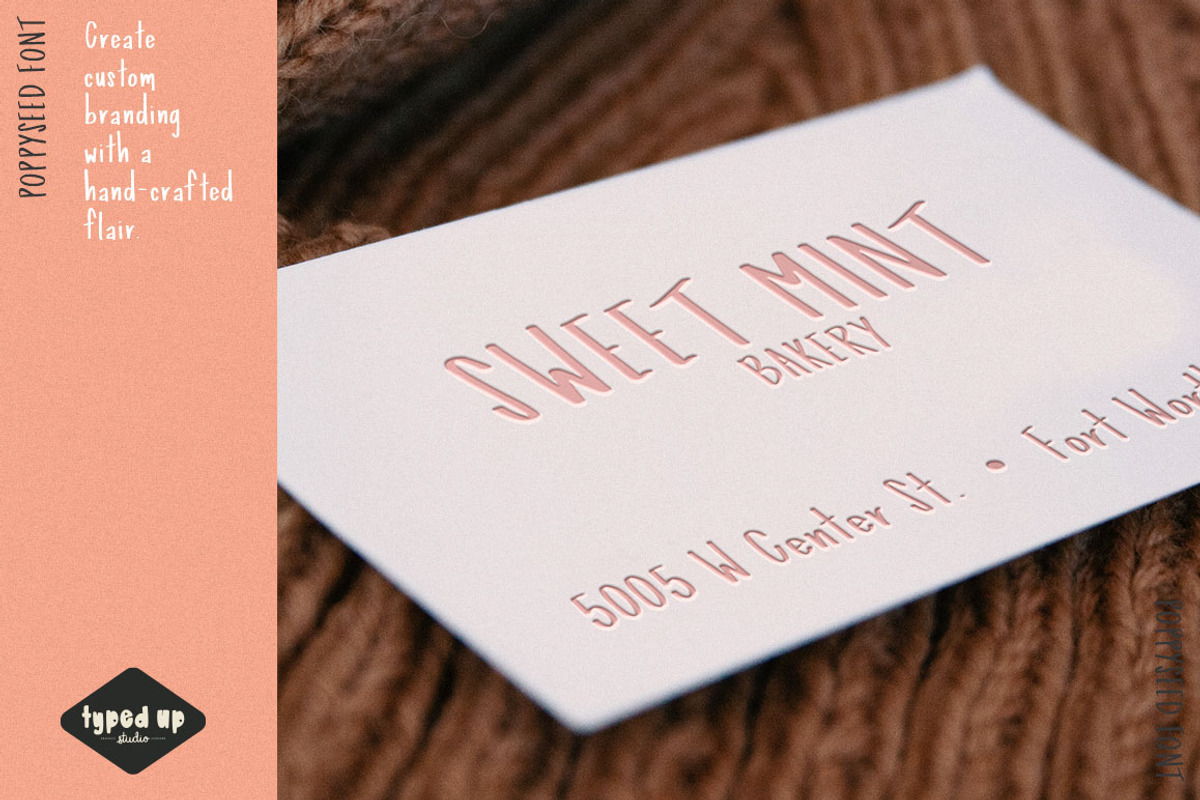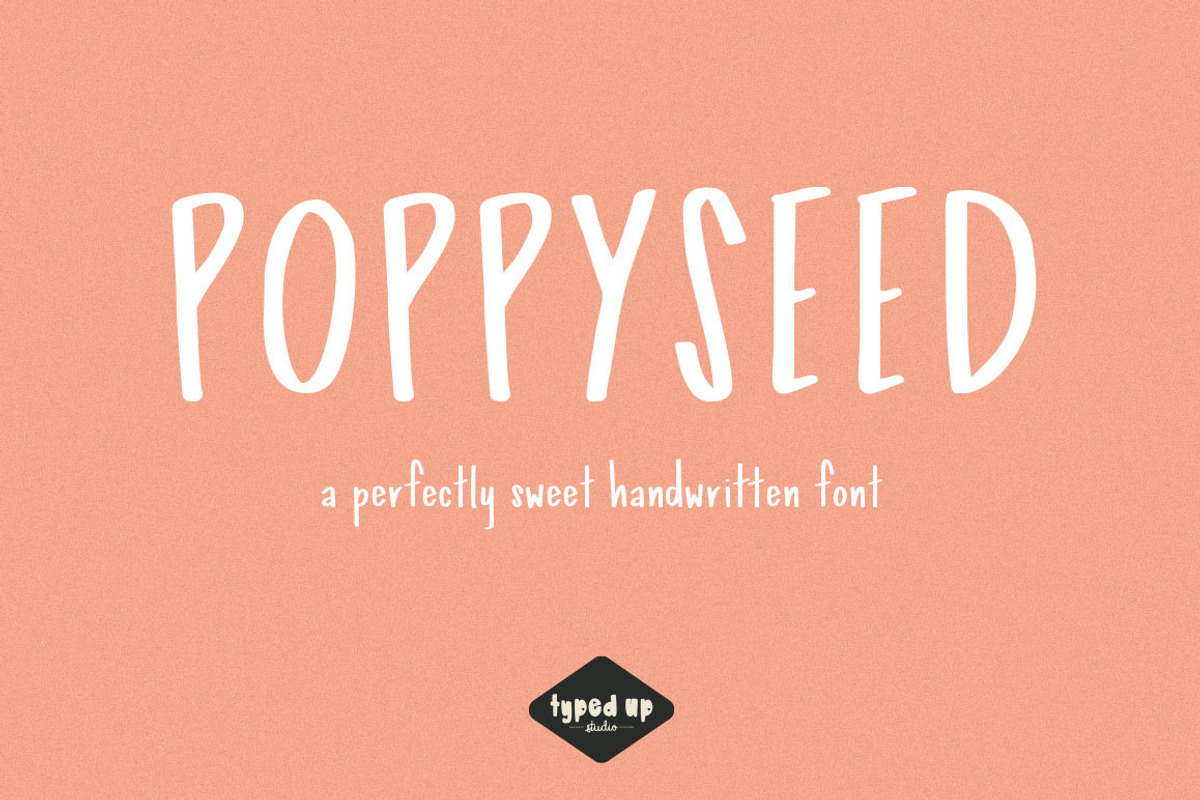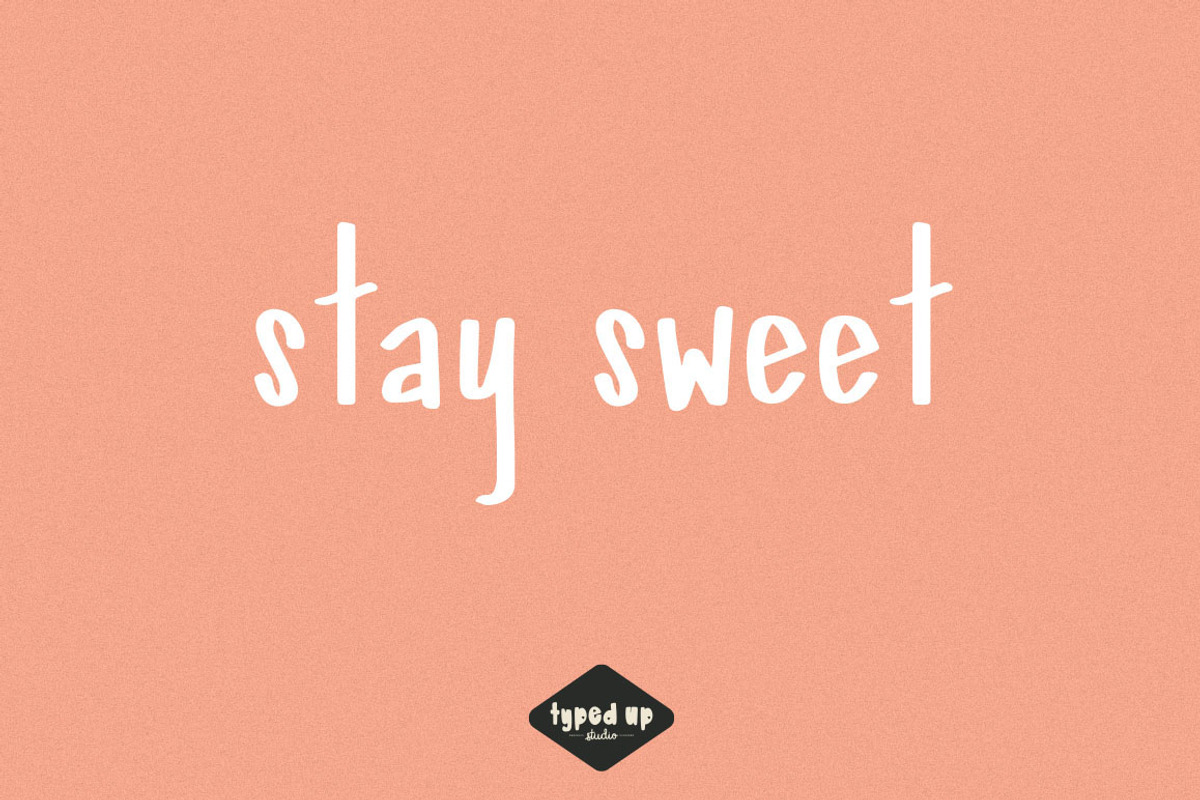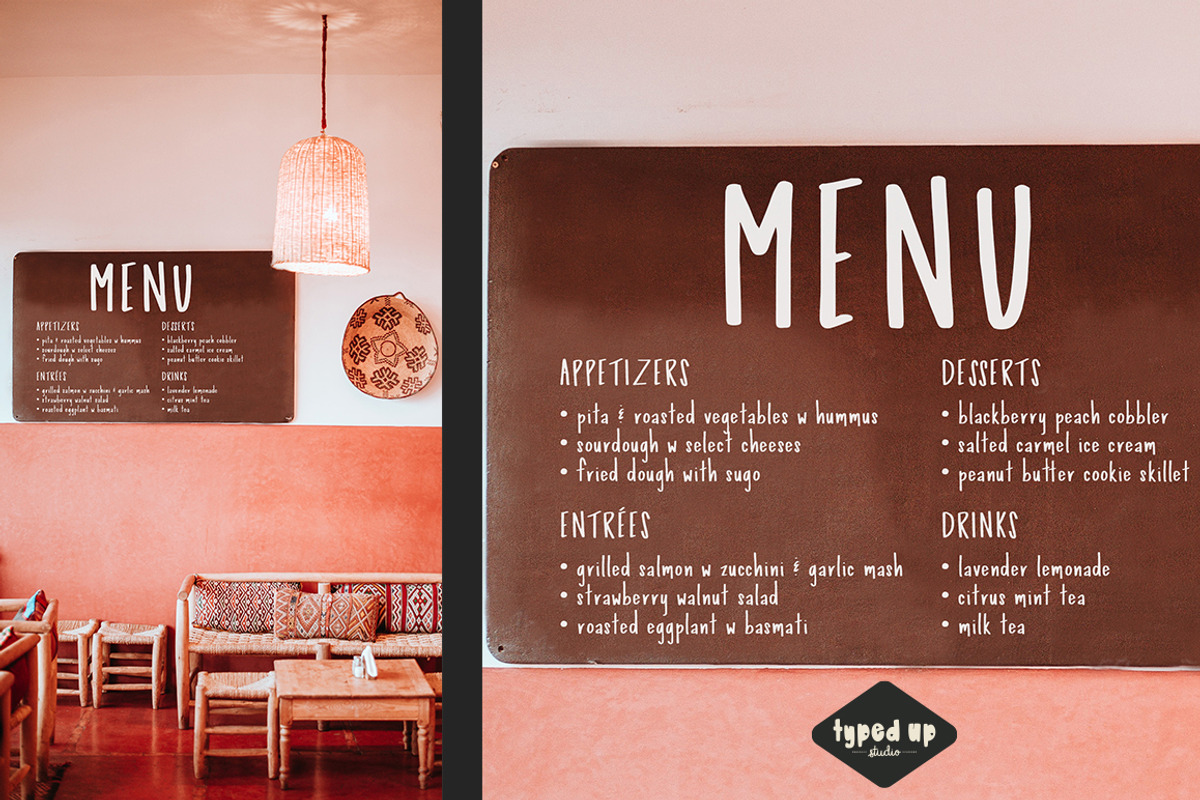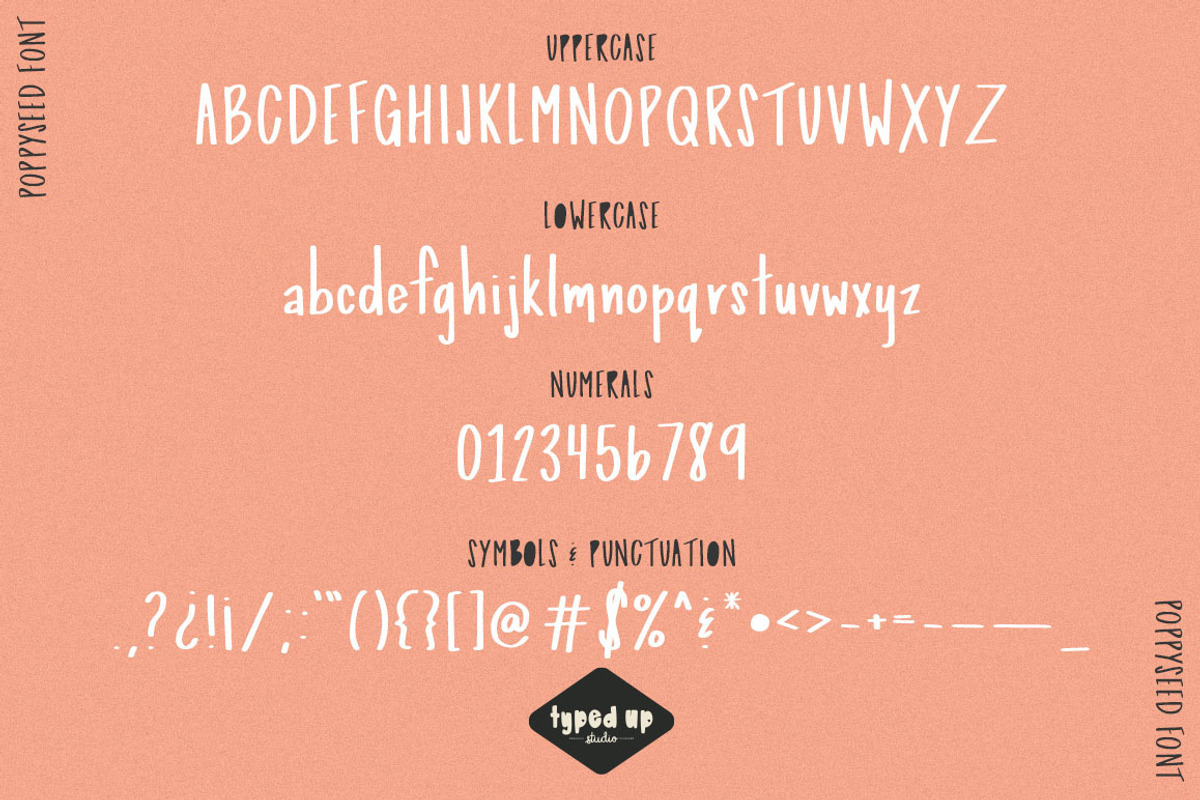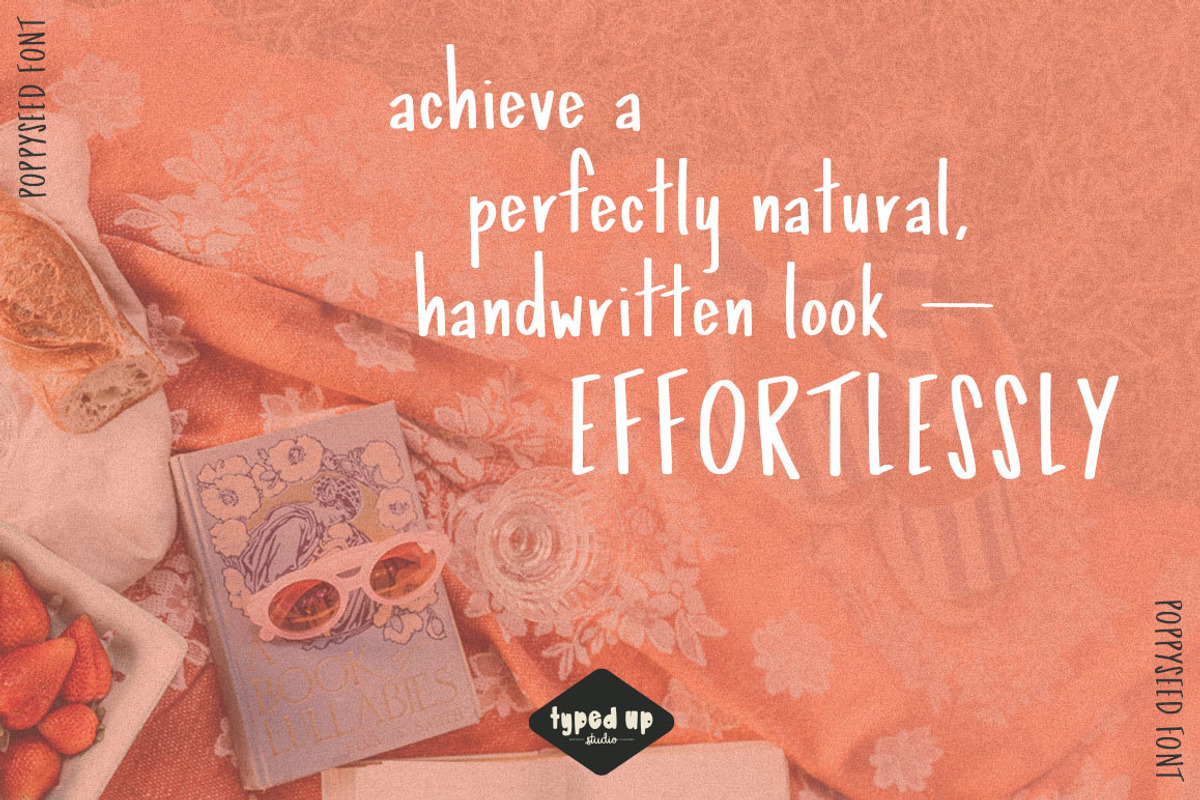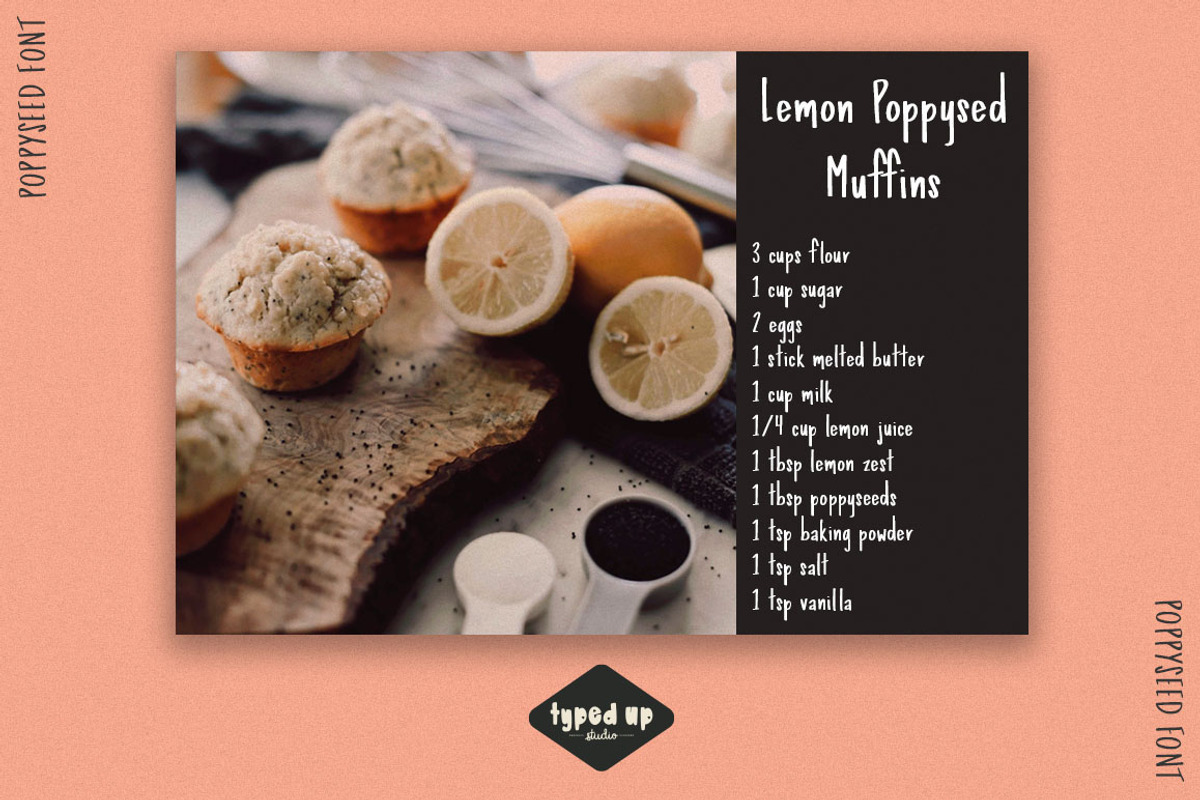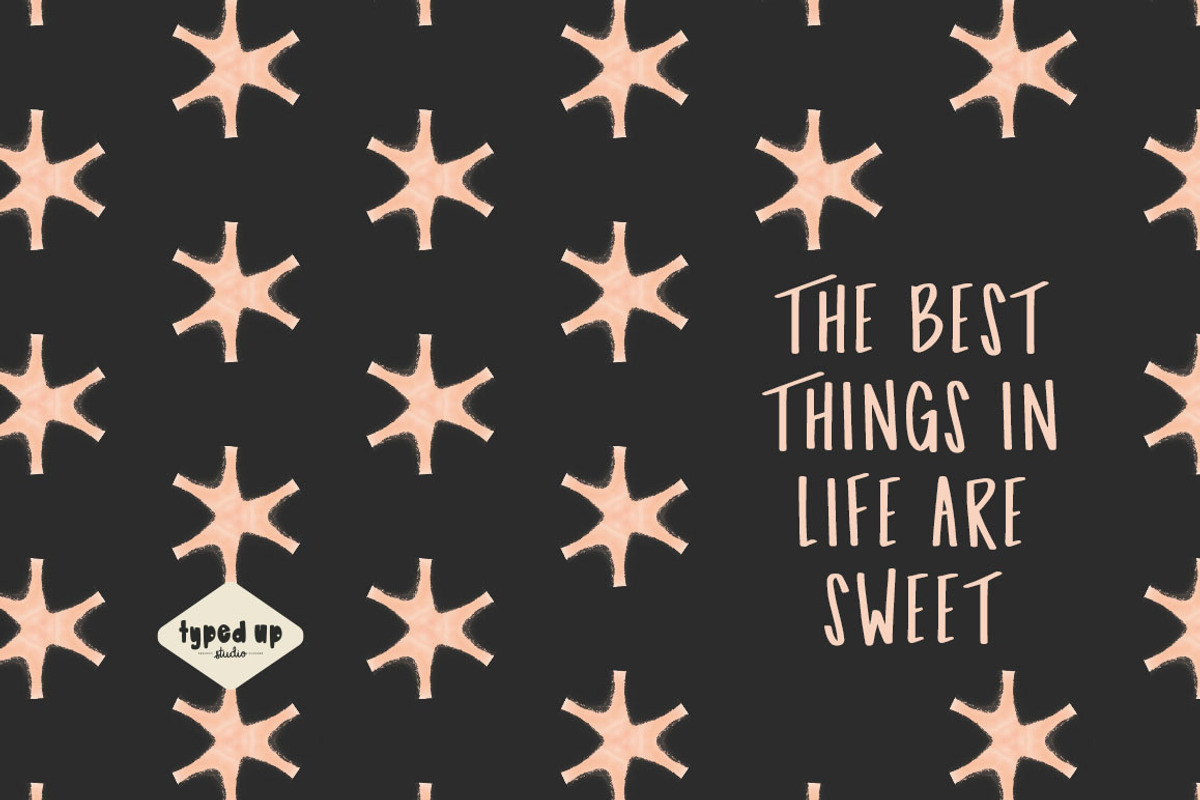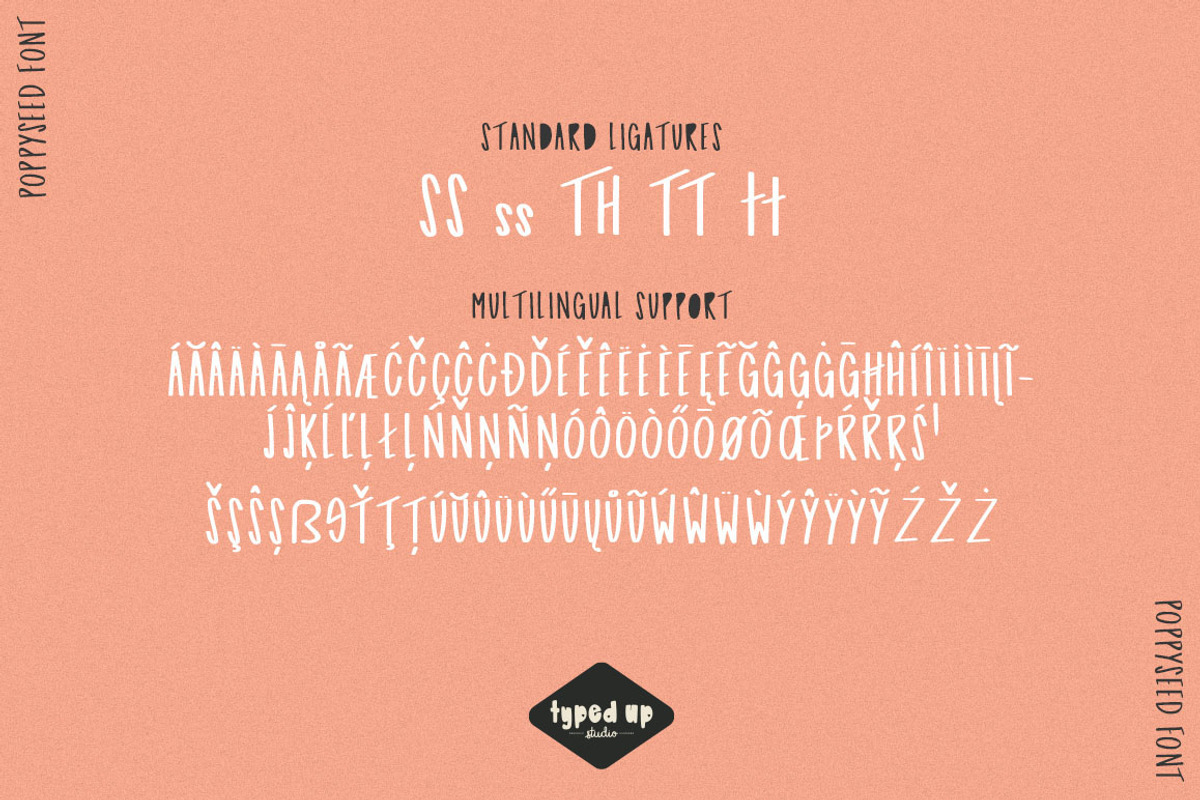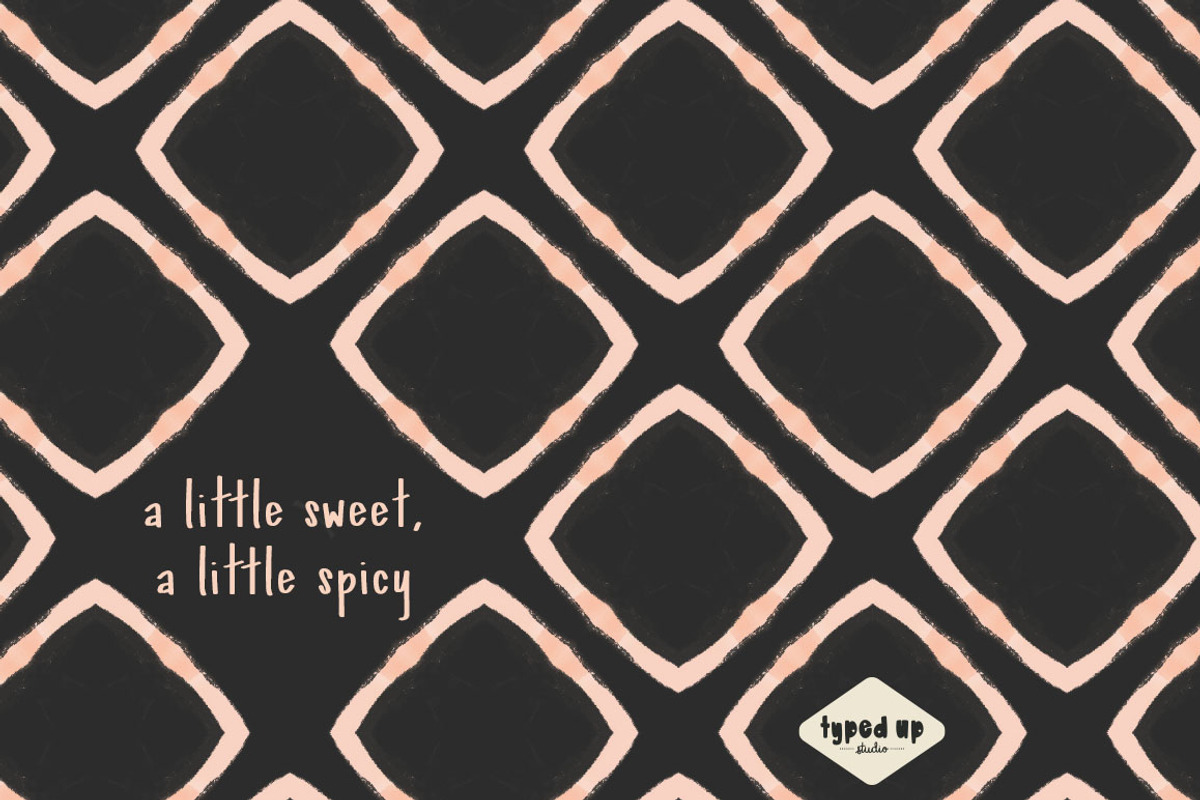
Poppyseed | Handwritten Sans Font
Poppyseed is a perfectly sweet handwritten font. Add a custom, hand-crafted feel to your brand, notes, or packaging without the extra work... just type it! Available in 2 styles - Regular and Solid, which has a paper cutout look. Poppyseed features 5 standard ligatures and full European and South American language support. This font also features smooth edges and PUA encoding for cutting machines such as cricut.